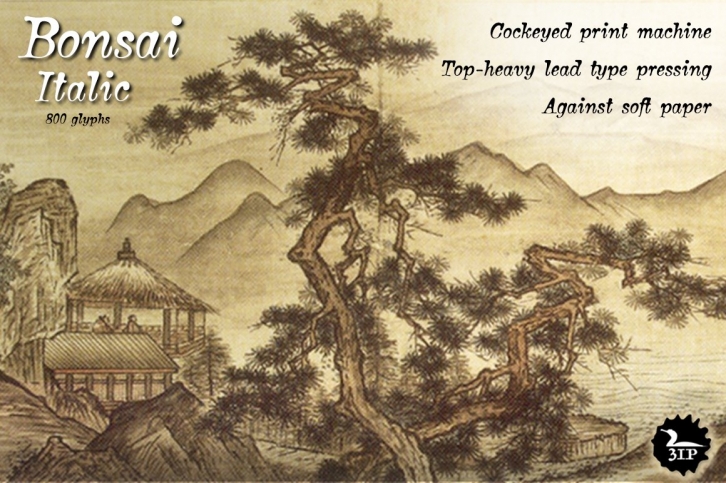
A good while ago I developed an interest in the Japanese art of dwarfed potted trees, bonsai. I bought some old pamphlets on the subject from Brooklyn Botanic Garden. In one—“Handbook on Bonsai: Special Techniques†(seventh printing, February 1976)—the type was bad. Old worn lead type, I suspect, spread wide in the tops of characters and disappearing at the bottoms. Two decades later, I came across my Brooklyn Botanic Garden collection and was struck again by this interesting type. Inspired, I made a typeface. Didn't take me long to decide on a name for it either: a name with a double-meaning, based both on its look and its inspiration. Bonsai Italic is one of two styles of the typeface; they both come with more than 800 glyphs—including true small caps, lining and old-style figures, lots o’ ligatures, fractions, currency symbols, and support for Central/Eastern European languages.